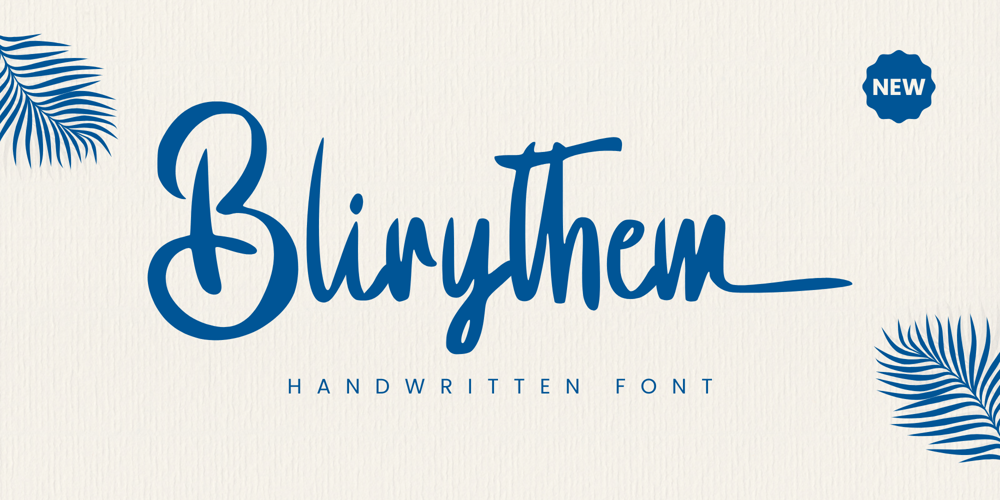
Blirythem Font Family was designed by Alif Ryan Zulfikar and published by Sakha Design. Blirythem contains 2 styles and family package options. Blirythem is a handwritten font with smooth, flowing strokes and modern charm. Perfect for logos, social media, and invitations, its stylish design enhances projects with a blend of elegance and a creative, free-spirited vibe.